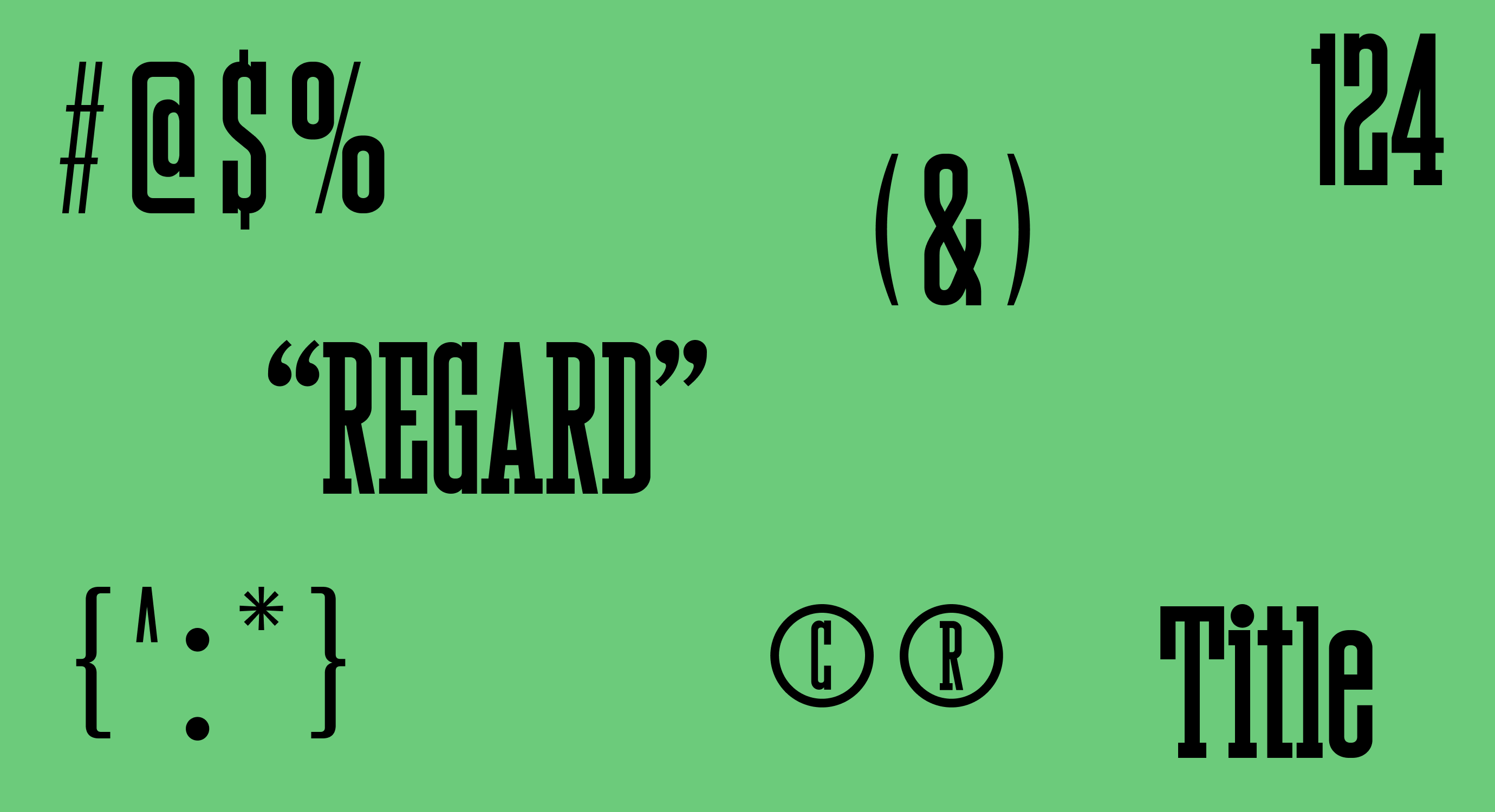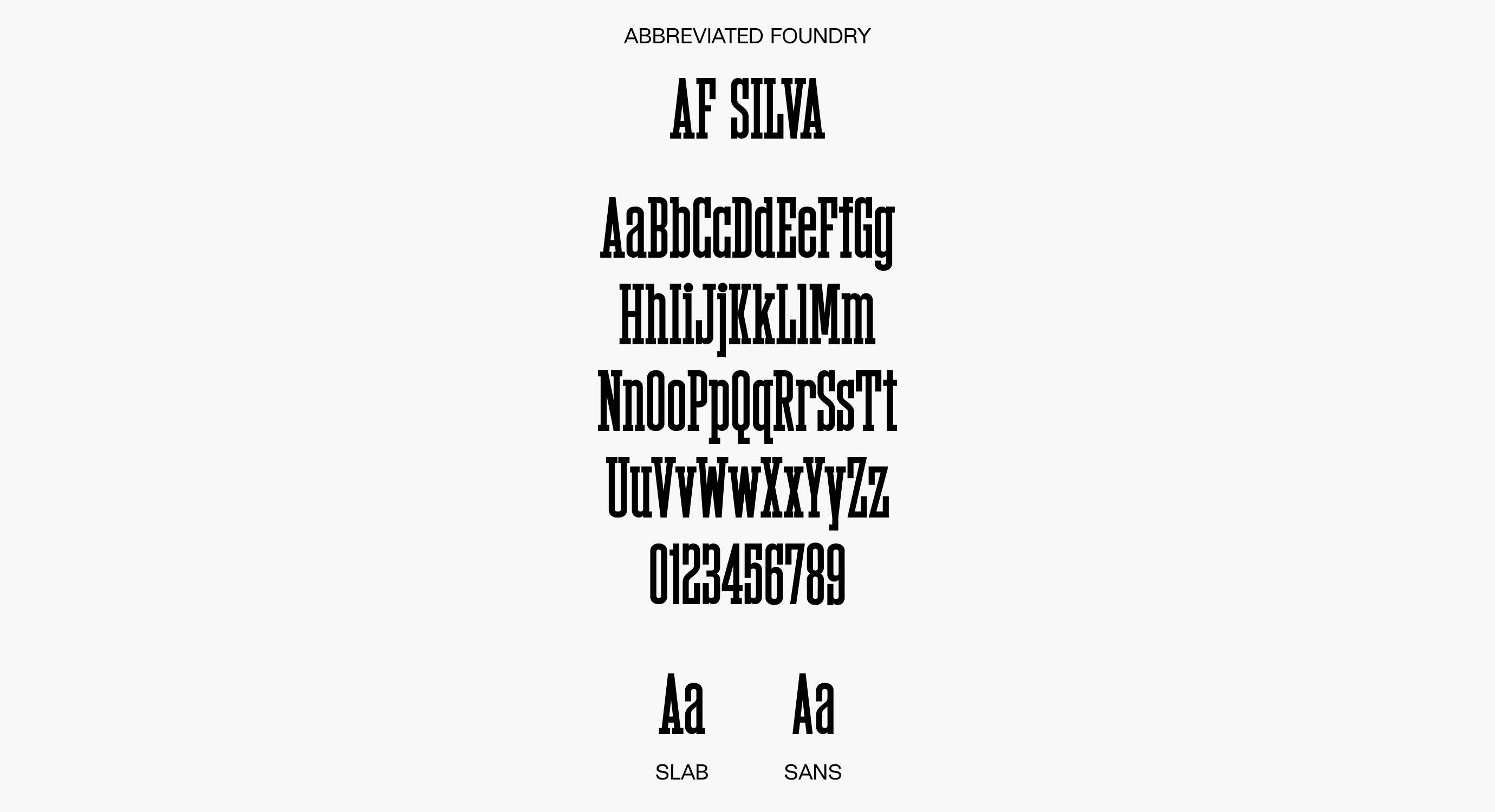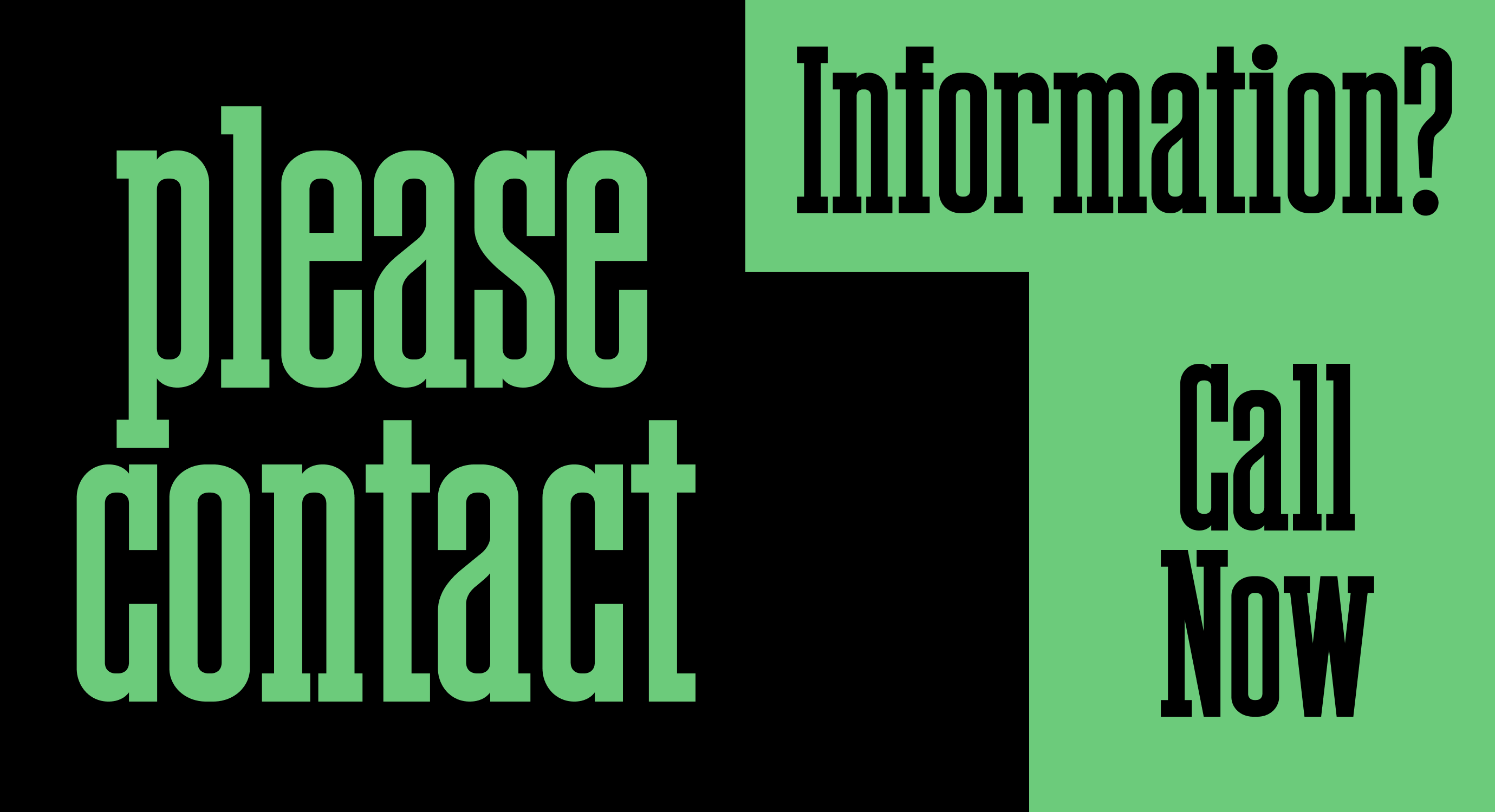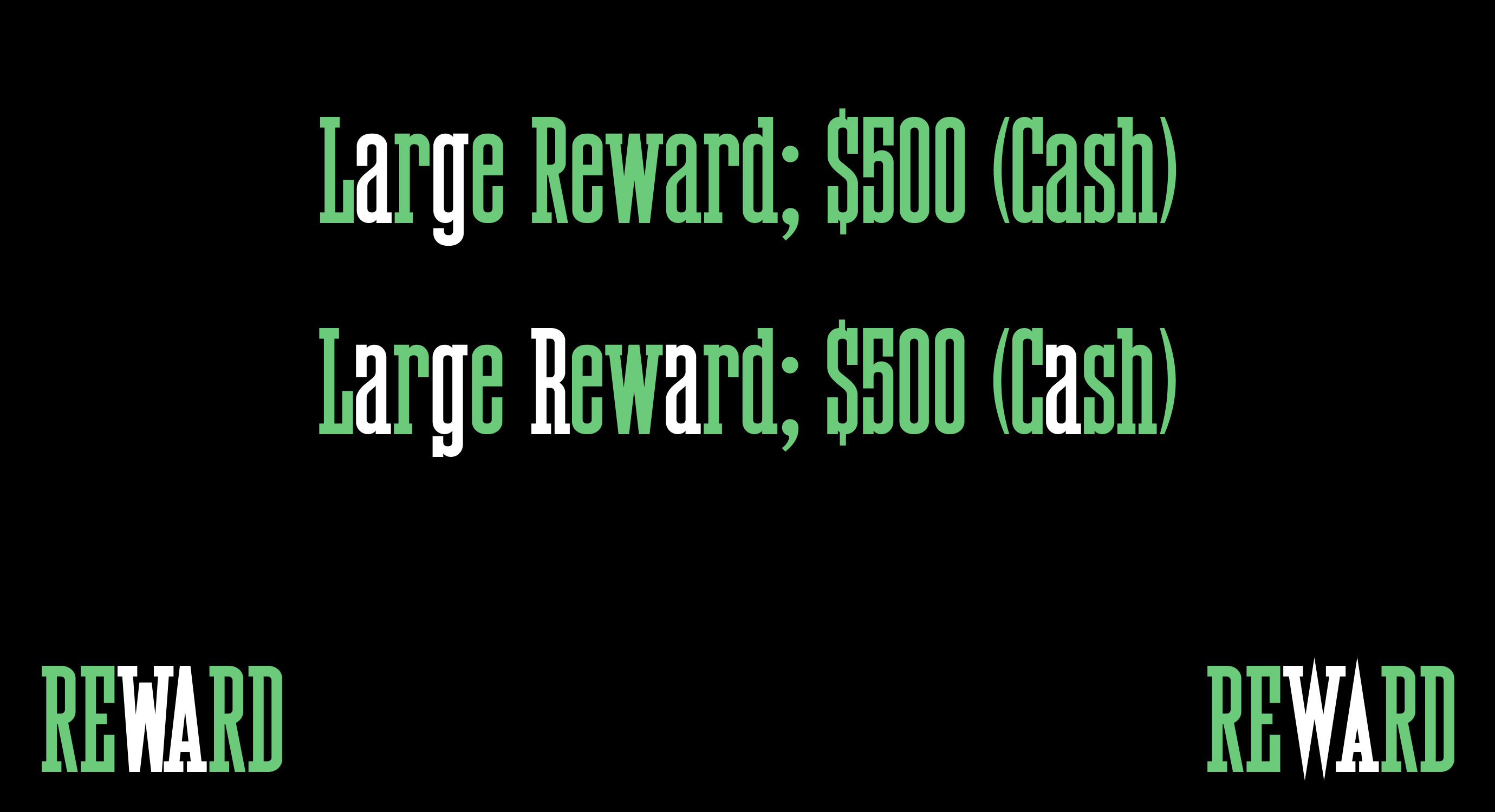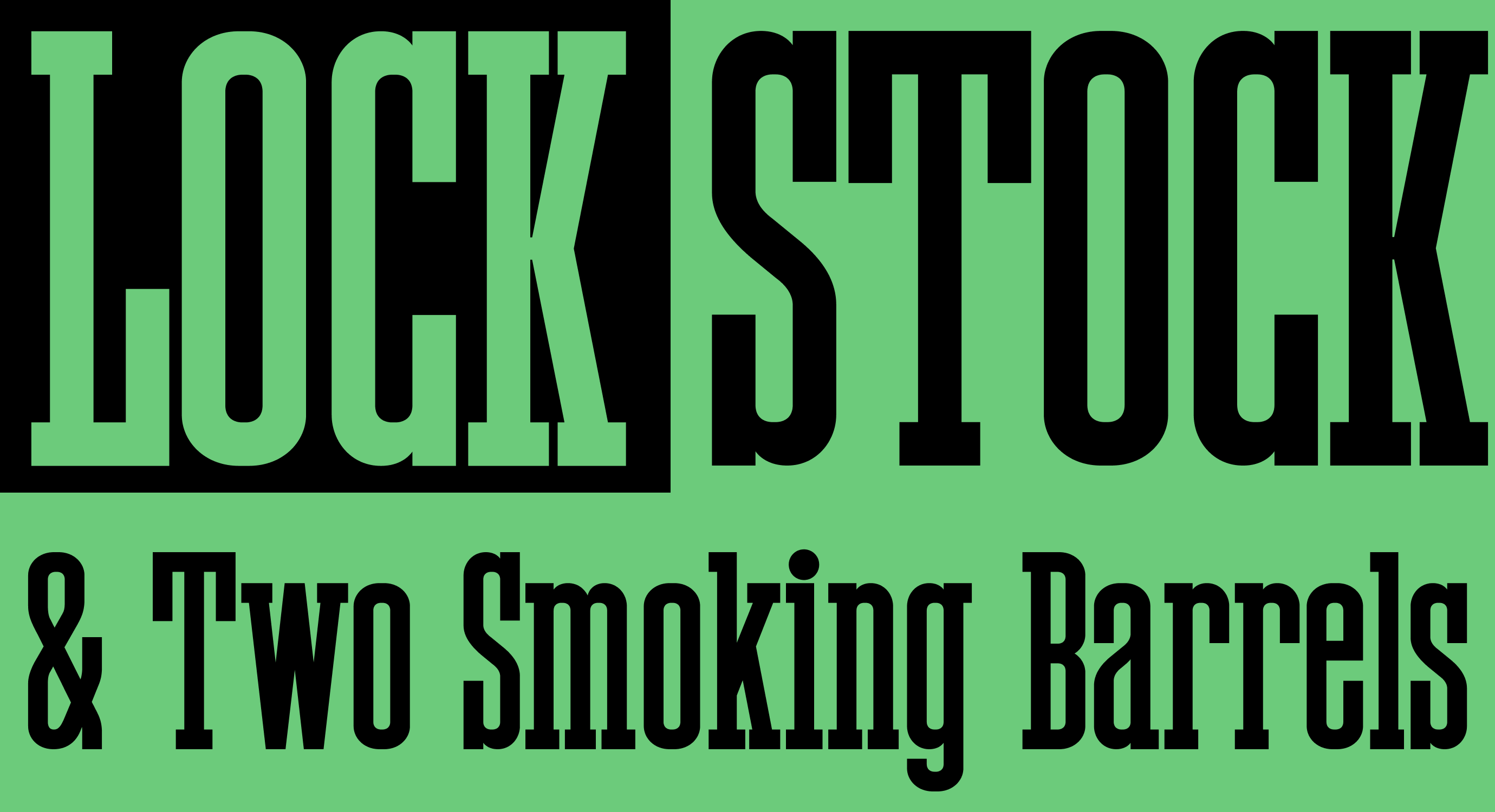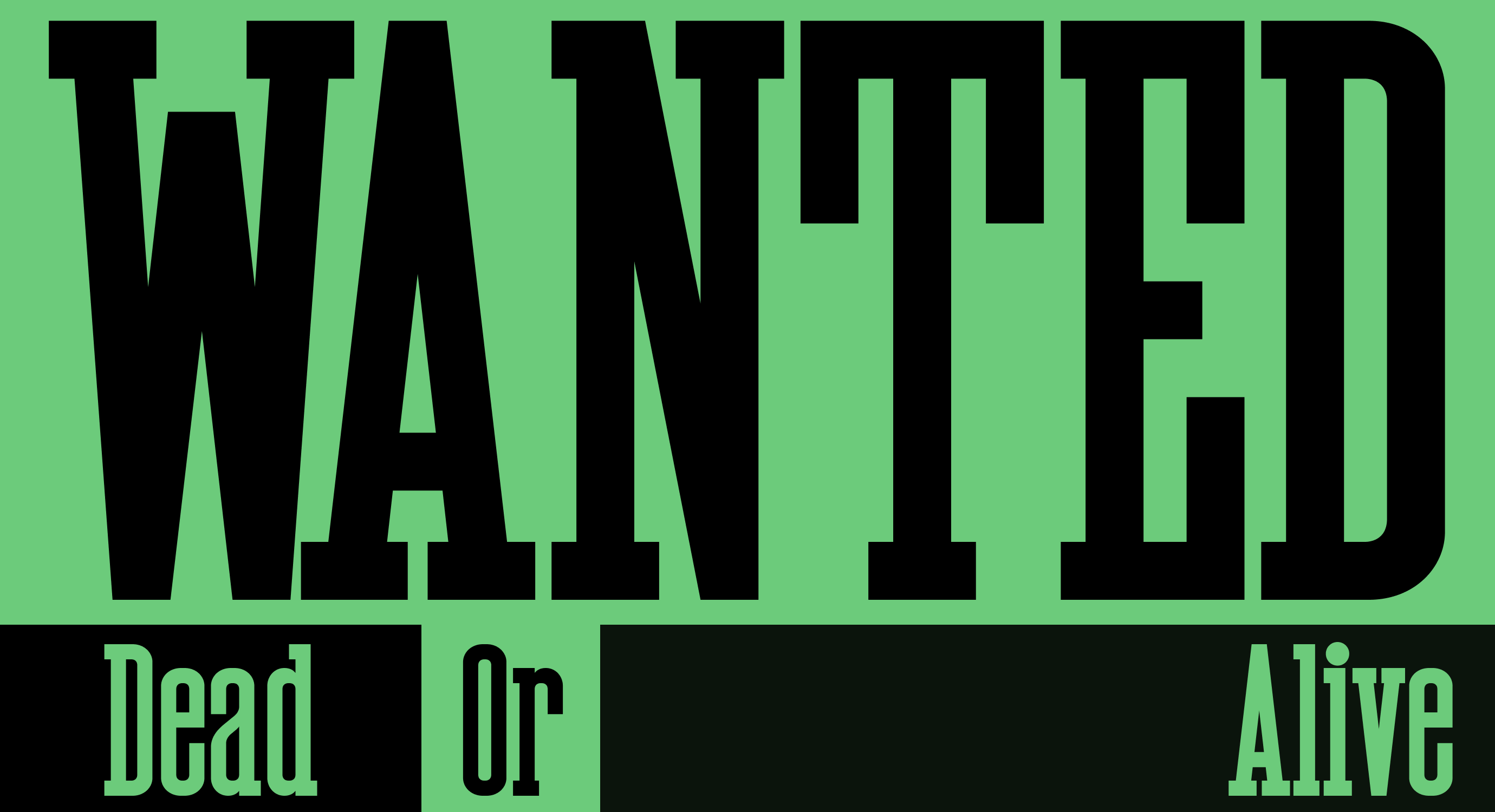
AF Silva
Slab
Sans
Behold a mono-linear marvel of single-stroke precision exuding a compressed elegance. AF Silva’s ability to shed its slab serifs at will makes it the ultimate tool for the discerning type connoisseur. Embrace its sleek sophistication and let your designs assume unmatched power.